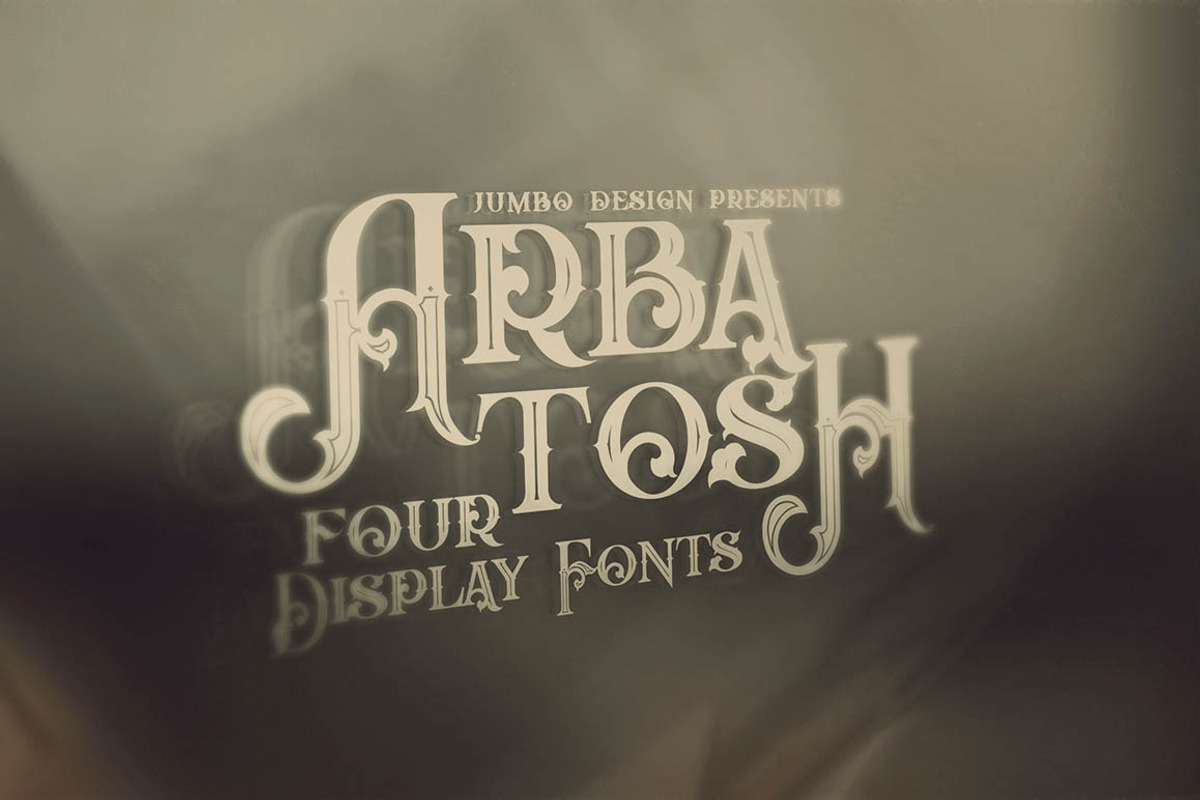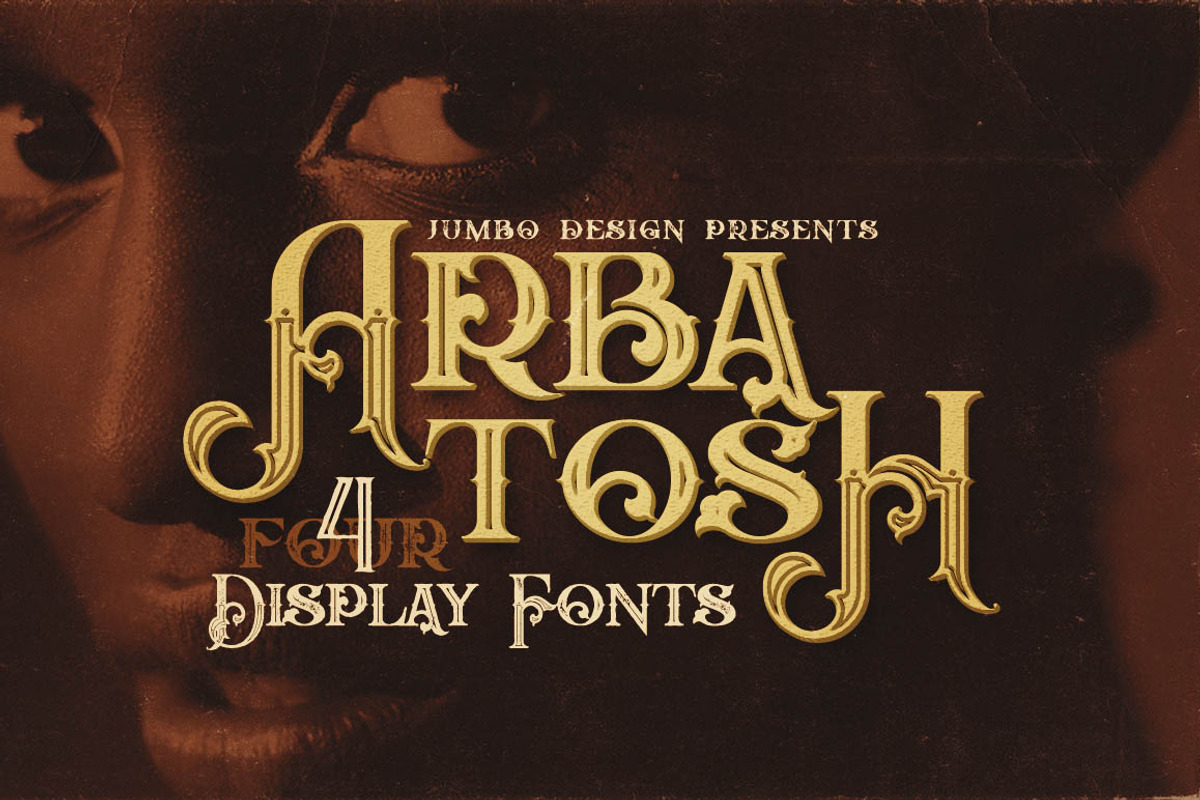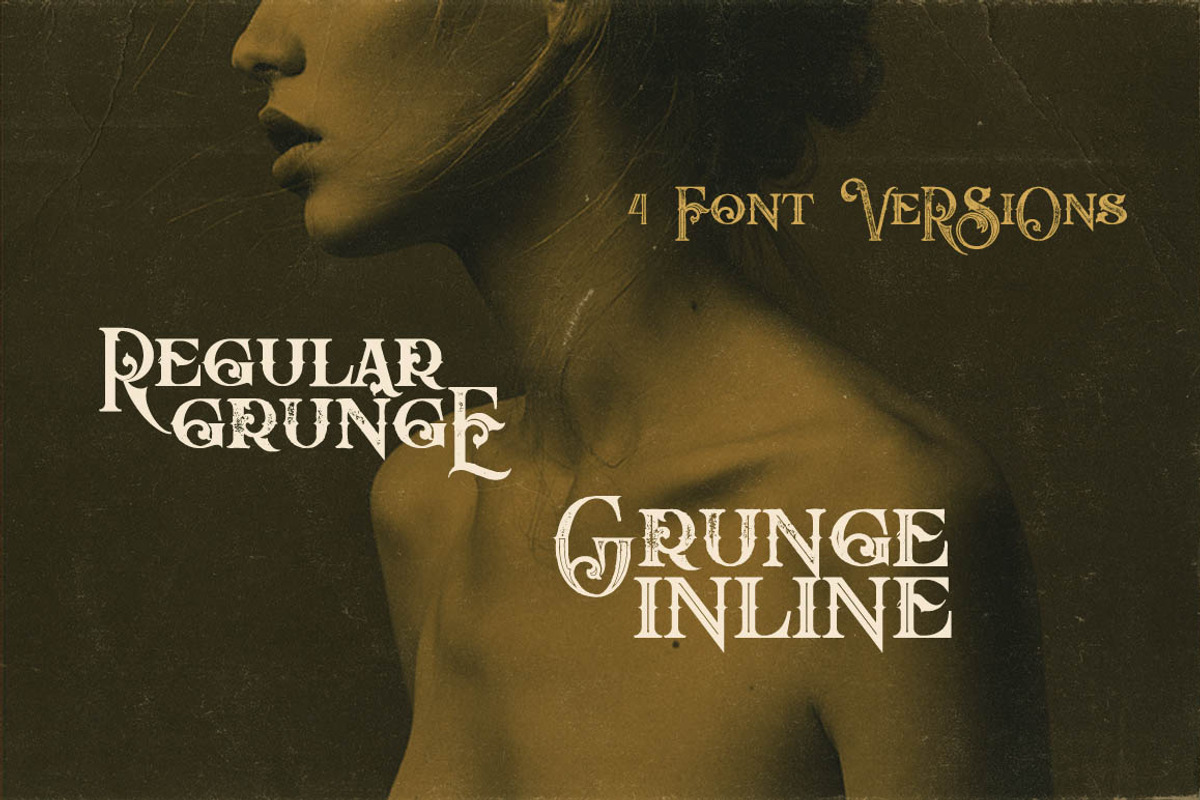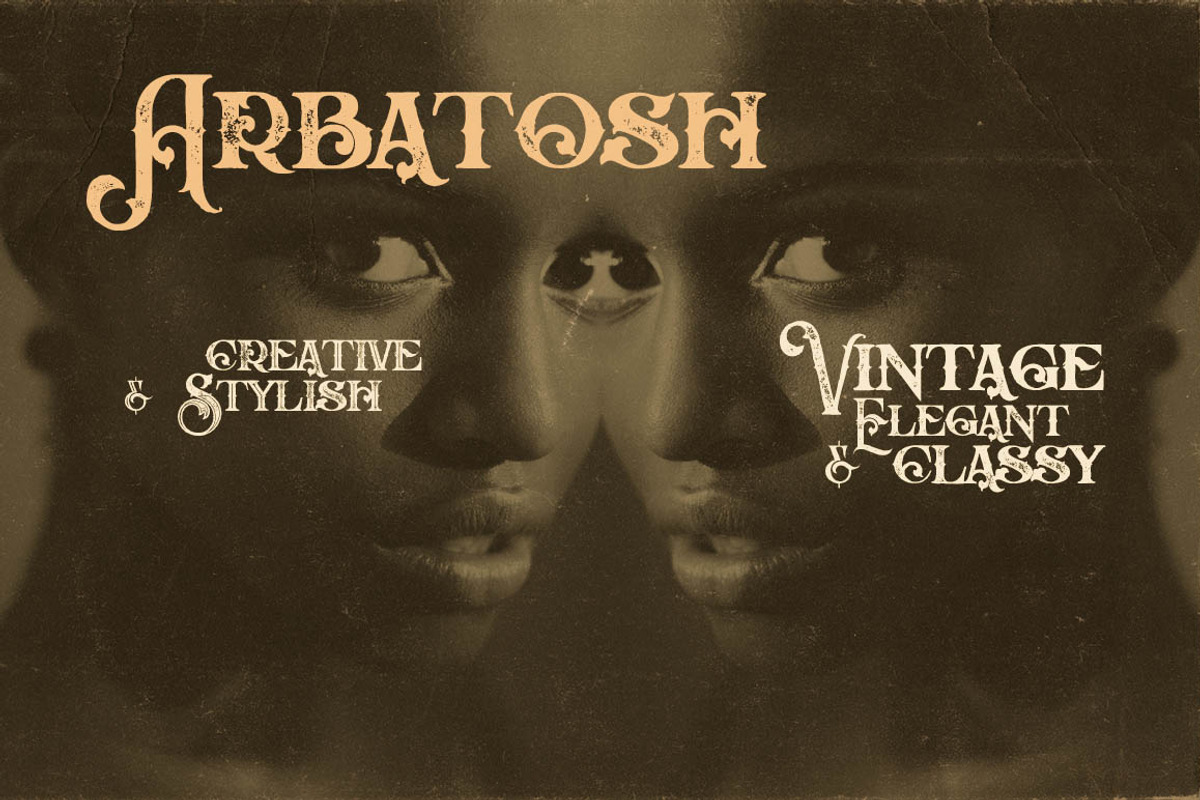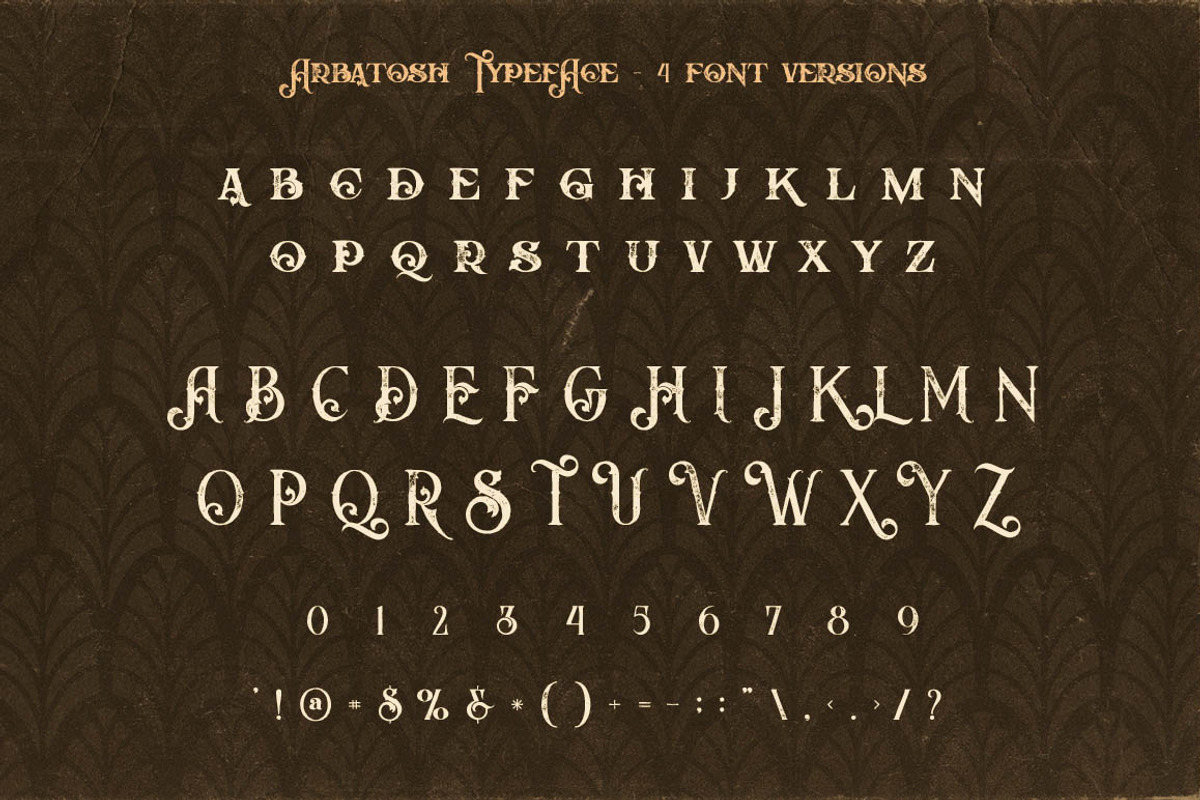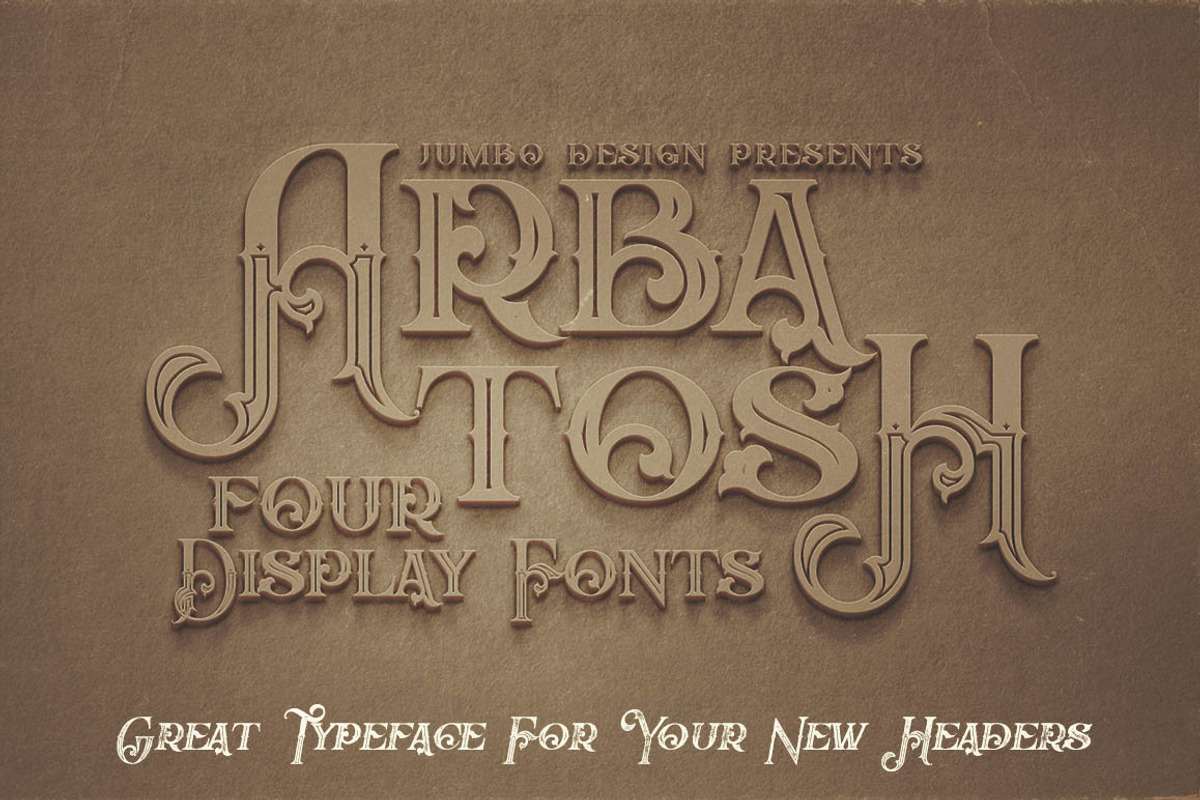
Arbatosh - Display Font
Unique vintage & ornamental style custom serif font with 4 styles: regular and grunge, inline and inline grunge.
Arbatosh - Display Font by JumboDesign fits naturally into Branding, posters, packaging, typography.